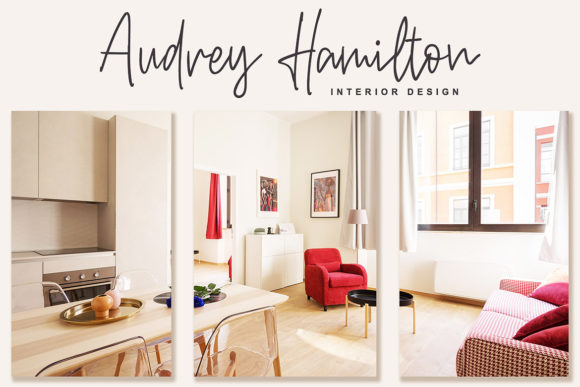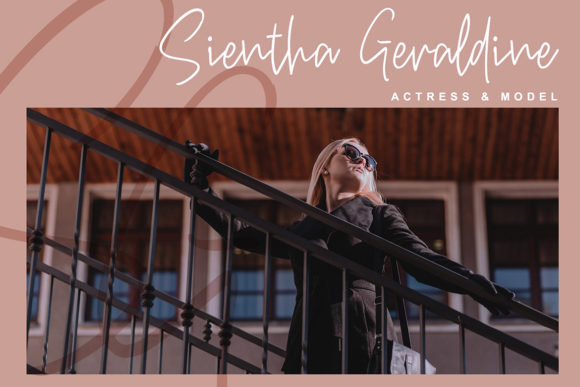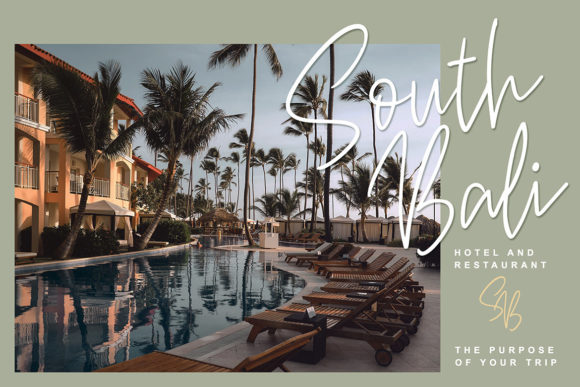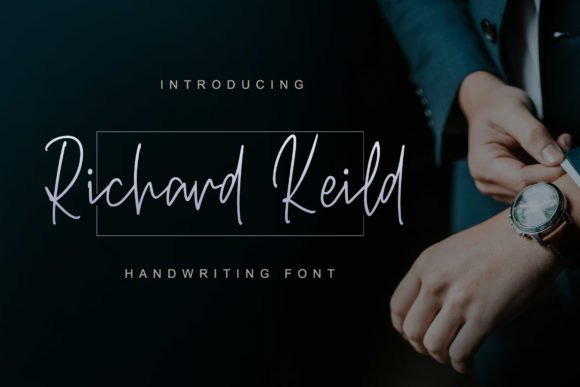
Introduction to Richard Keild Font
Richard Keild is an elegant and romantic handwritten font with heaps of personality.
Fall in love with its light and sophisticated charm .